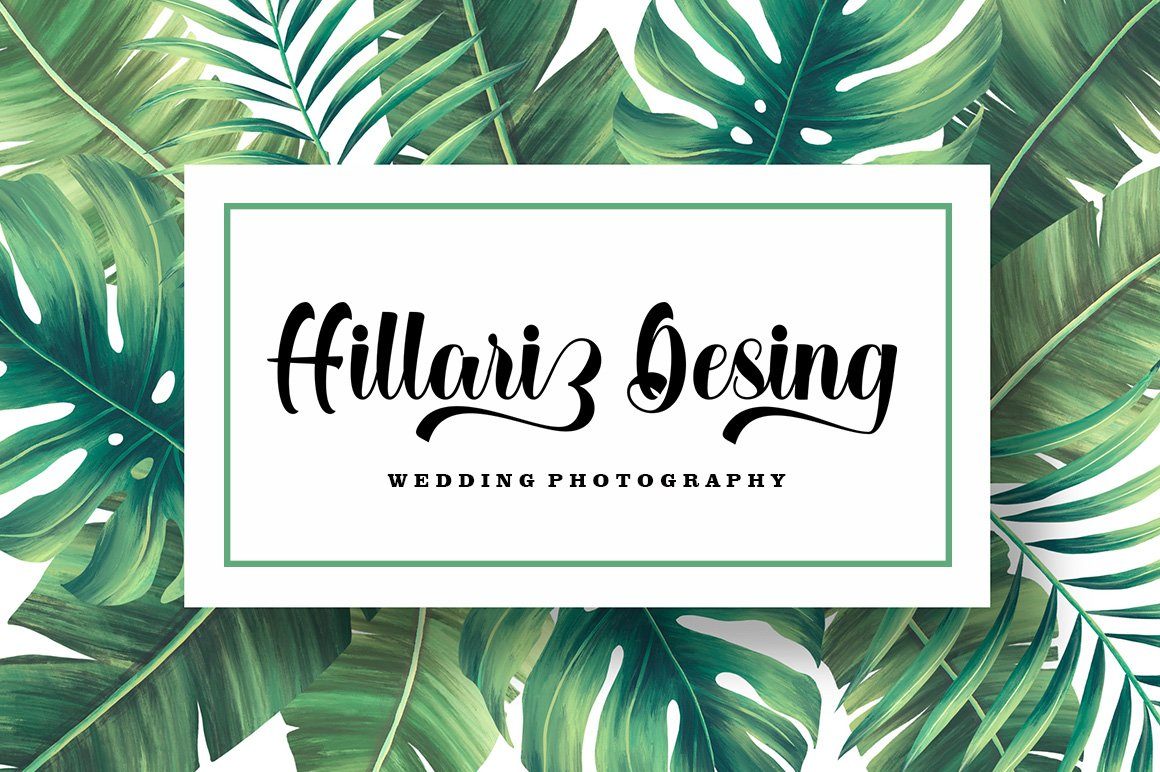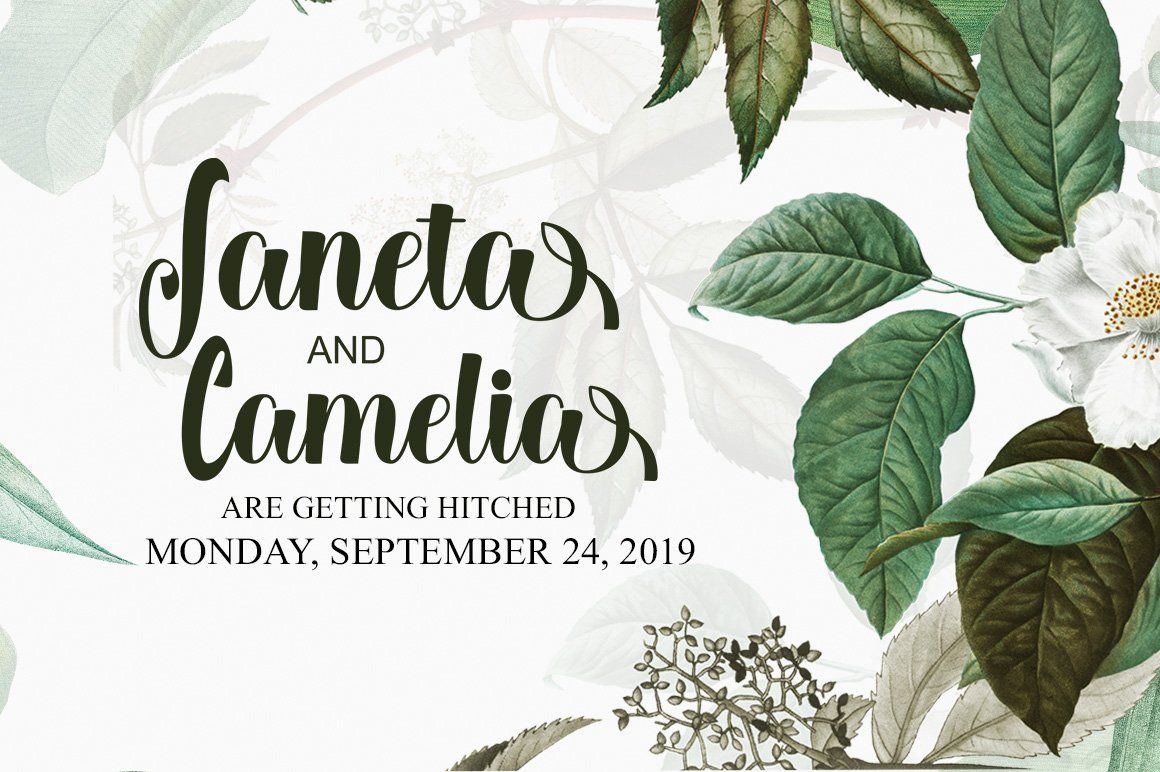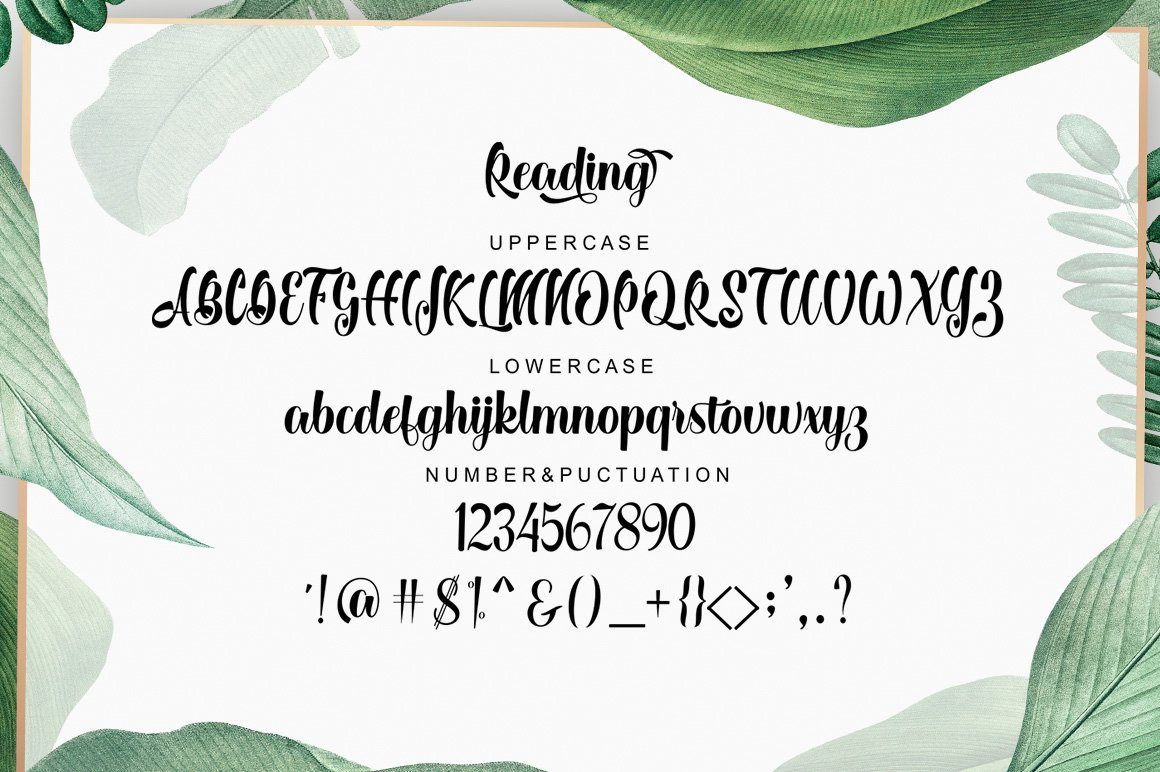
About Reading Script
Reading Script is a contemporary romantic calligraphy typeface, a mixture of retro scripts and modern Script. get a classic and elegant touch. Can be used for various purposes. Such as logos, wedding invitations, t-shirts, letterhead, signage, labels, news, posters, badges etc. Files included: Reading Regular Script. otf-ttf To activate the OpenType Stylistic alternative, you need a program that supports OpenType features such as Adobe Illustrator CS, Adobe Indesign & CorelDraw X6-X7, Microsoft Word 2010 or newer versions. How to access all alternative characters, using Windows Character Map with Photoshop: https://www.youtube.com/watch?v=Go9vacoYmBw How to access all alternative characters using Adobe Illustrator: https://www.youtube.com/watch?v=XzwjMkbB-wQ Reading Script are encoded with Unicode PUA, which allows full access to all additional characters without having special design software. Mac users can use the Font Book, and Windows users can use the Character Map to view and copy one of the additional characters to paste into your favorite text editor / application. Thank you very much for searching and let me know if you have any questions.